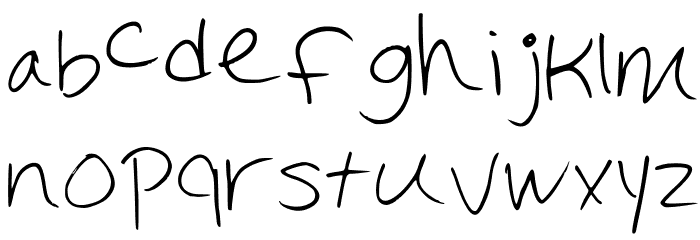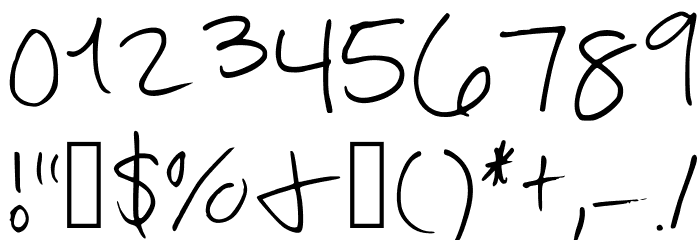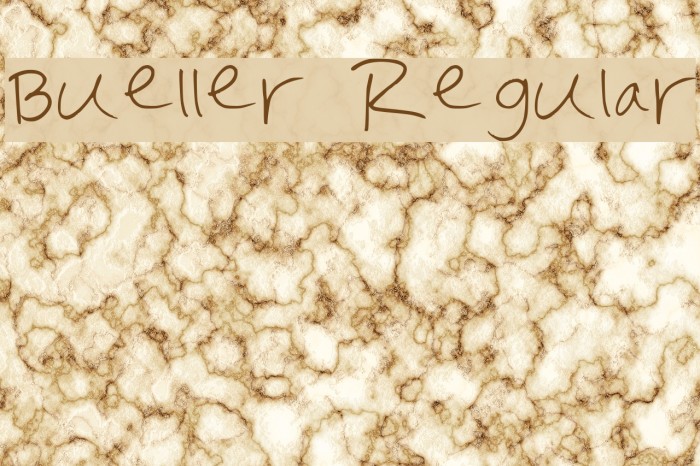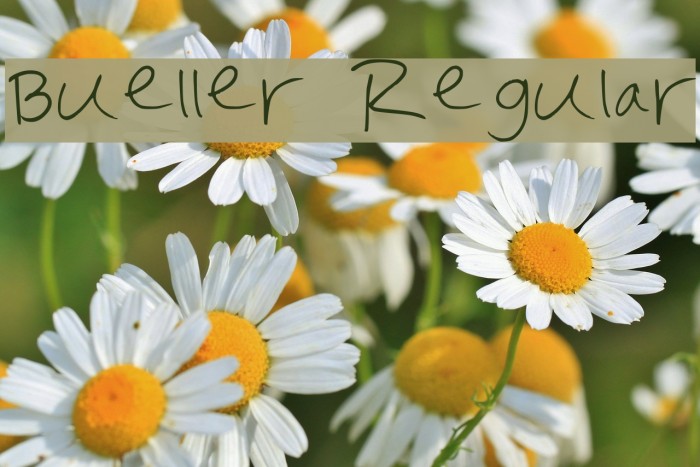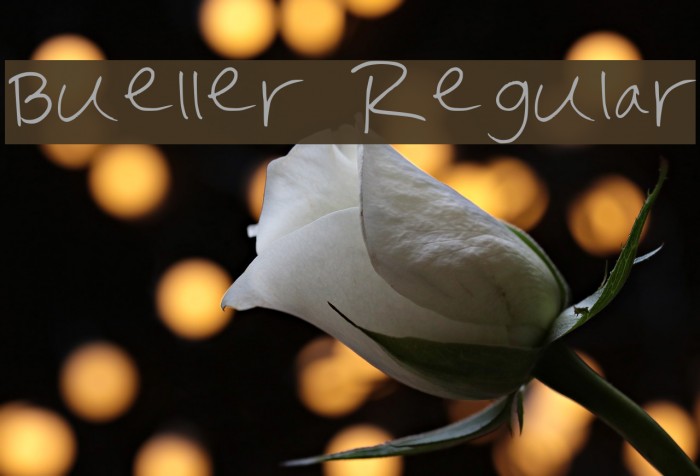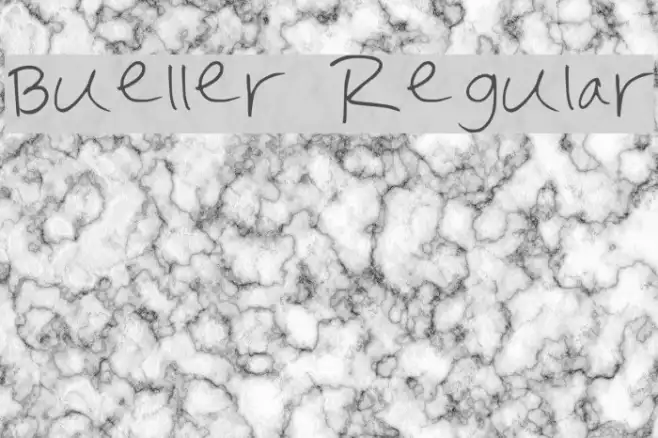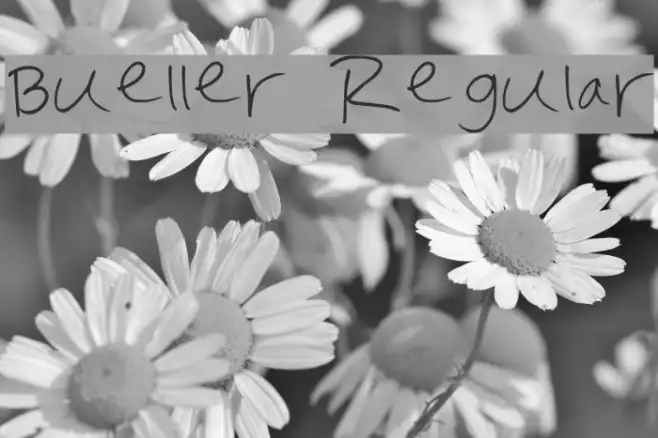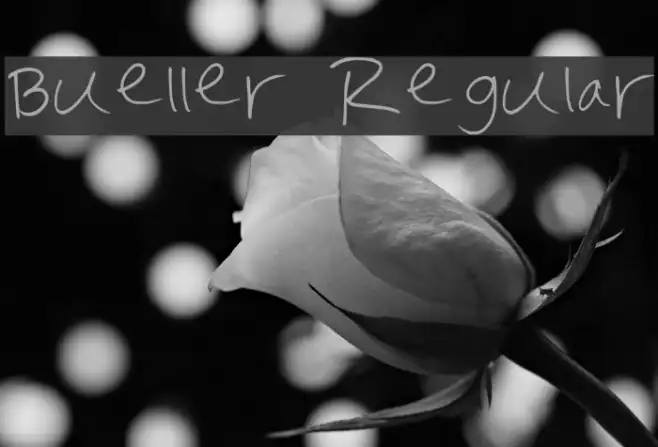
Bueller Regular Font
This font exudes a casual and handwritten style, characterized by its playful and informal appearance. The letters are slightly slanted, giving it a dynamic and lively feel. The strokes are uneven, mimicking the natural flow of handwriting, which adds a personal touch to the text. The uppercase and lowercase letters maintain a consistent style, with rounded edges and a smooth flow between characters. The numerals and special characters follow the same handwritten aesthetic, ensuring a cohesive look across all text elements. This font is perfect for projects that require a personal, approachable, and friendly tone.
A casual, handwritten font with a playful and informal style.
- Proposed Projects: Ideal for greeting cards, personal blogs, informal invitations, and creative projects that require a personal touch.
- Overall Style: Casual
- Use Case: Headlines, Informal text, Creative projects